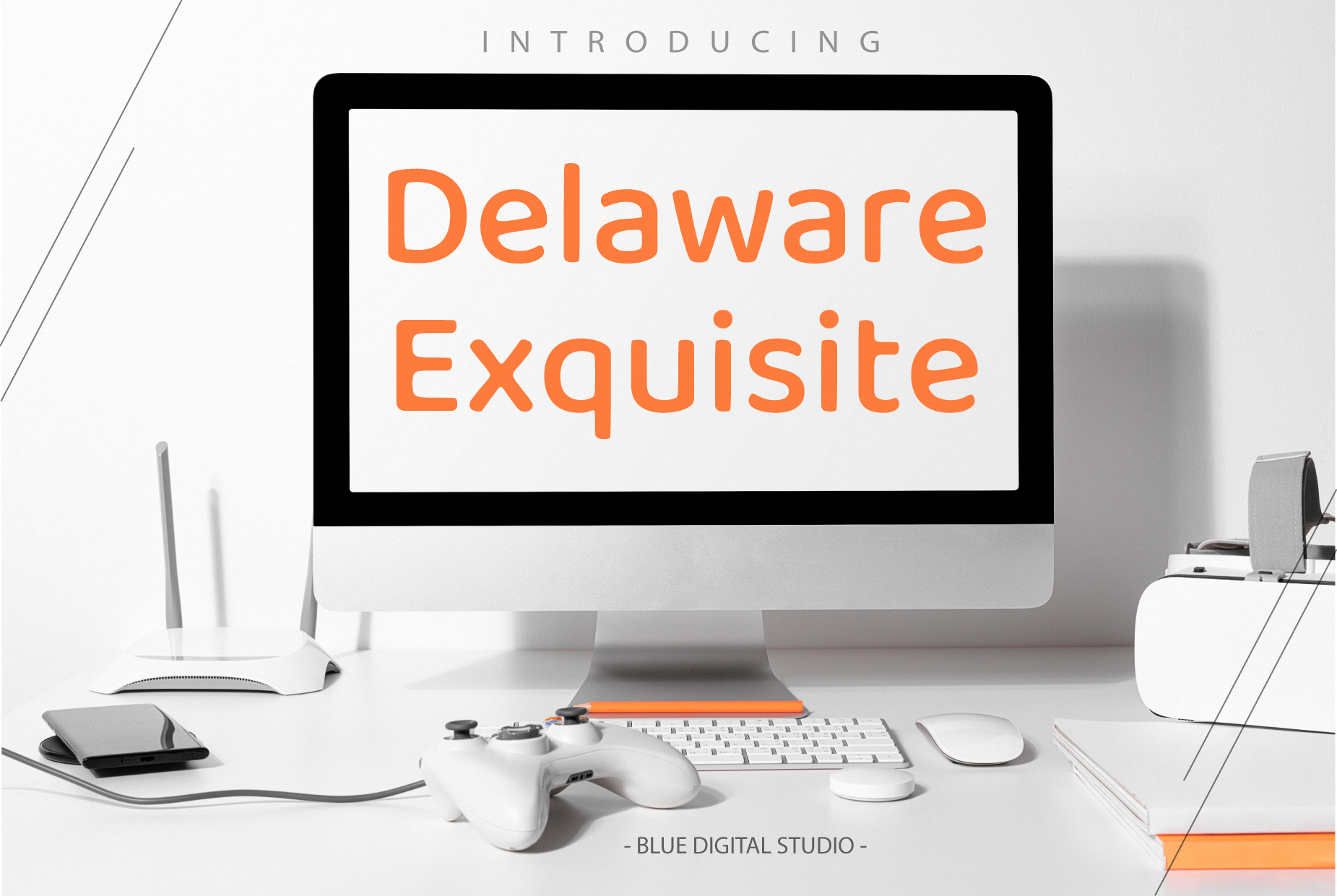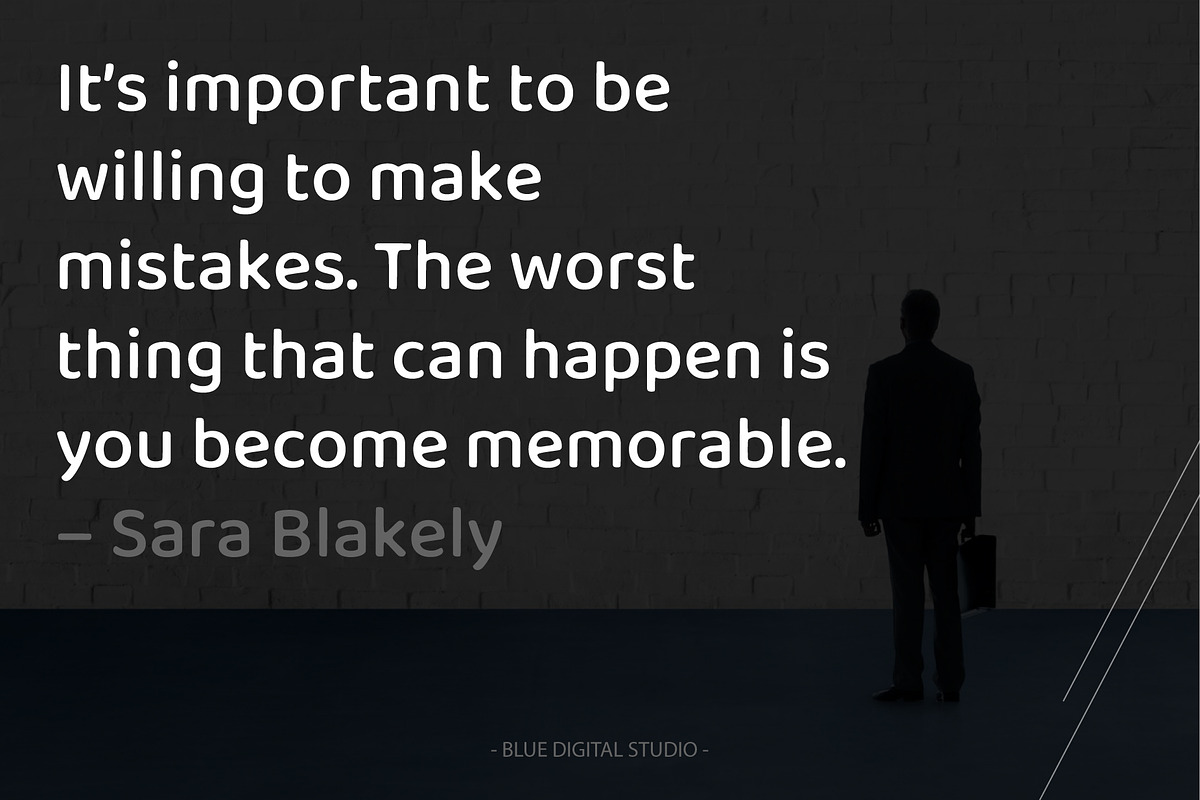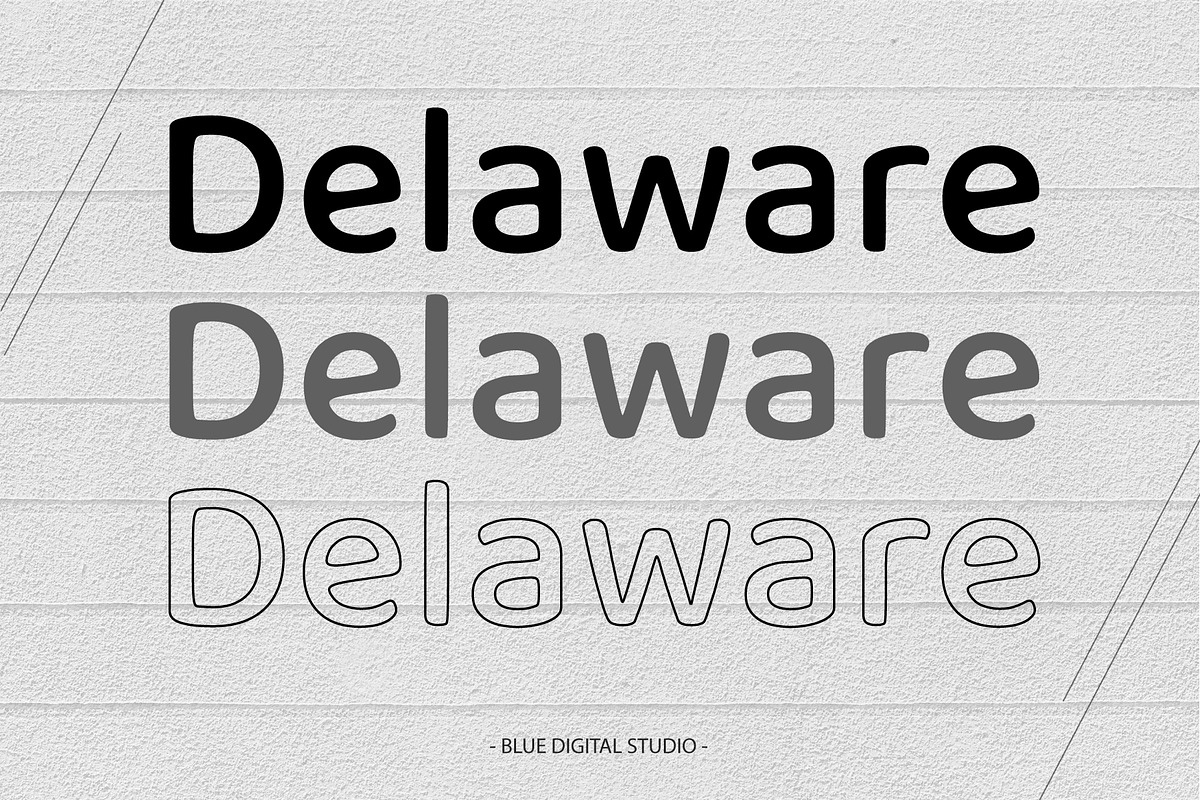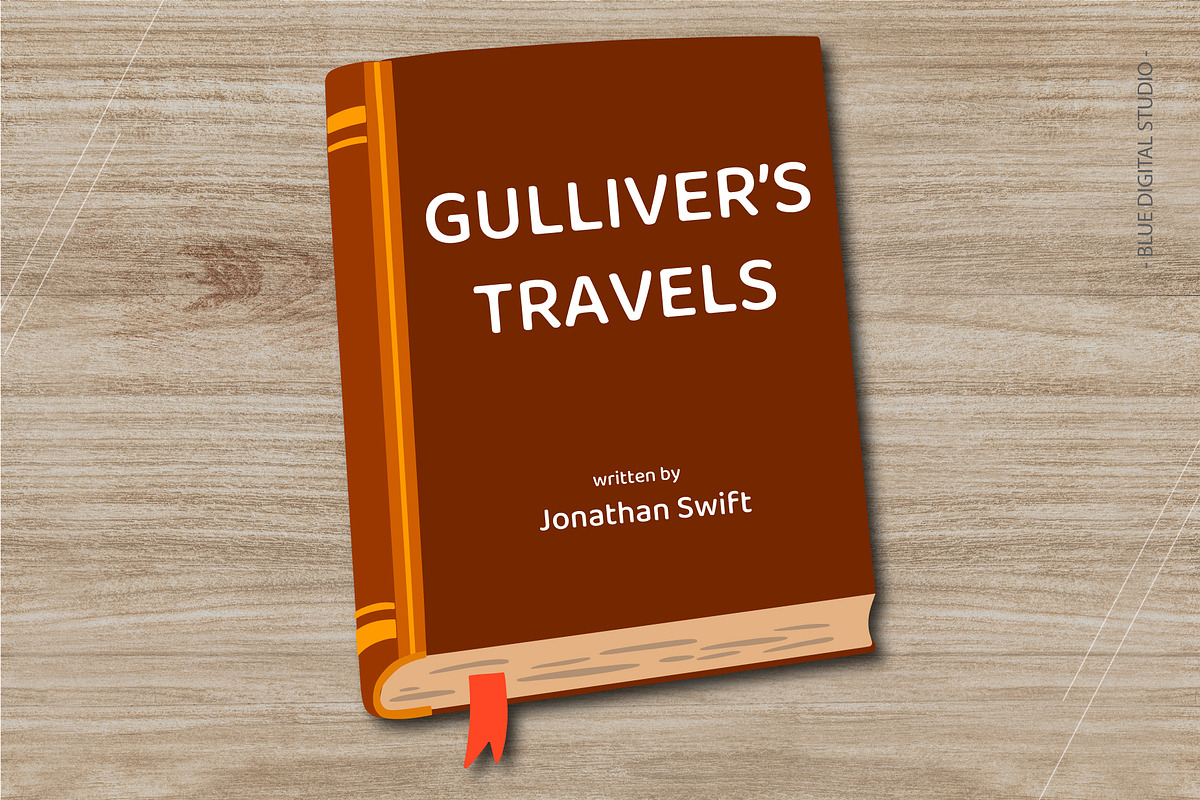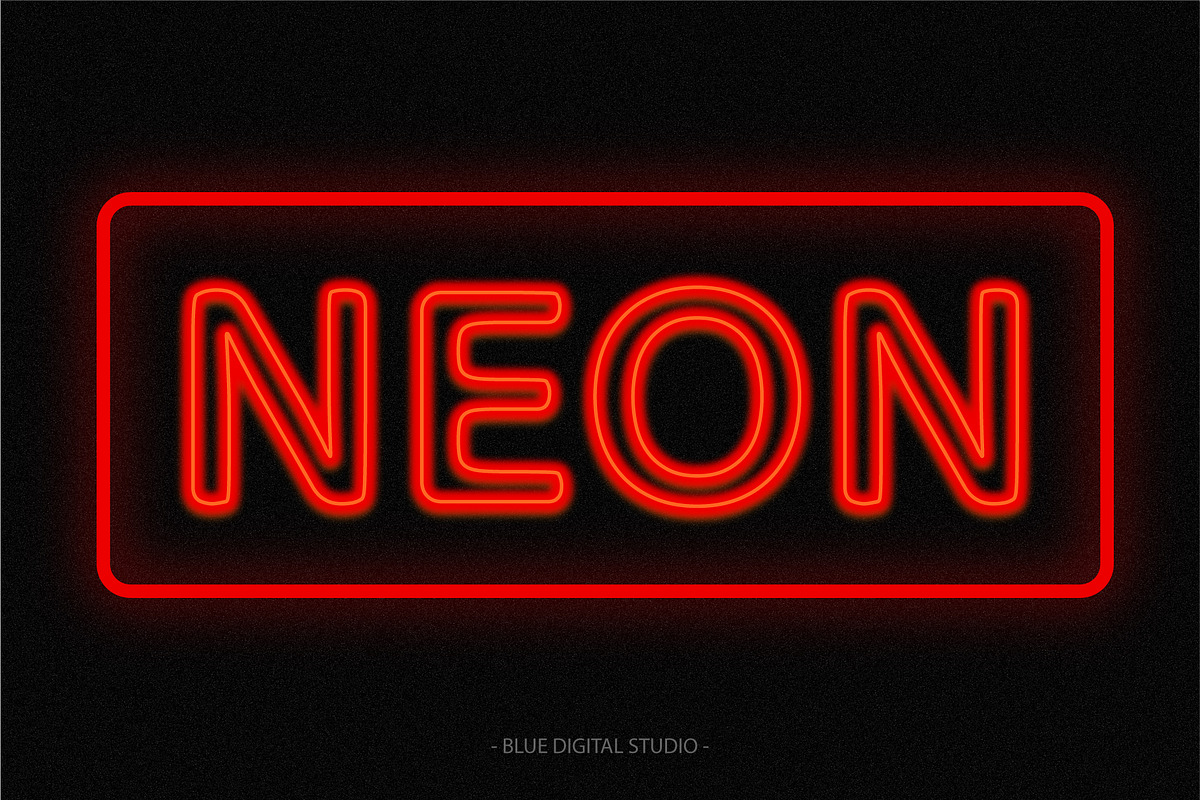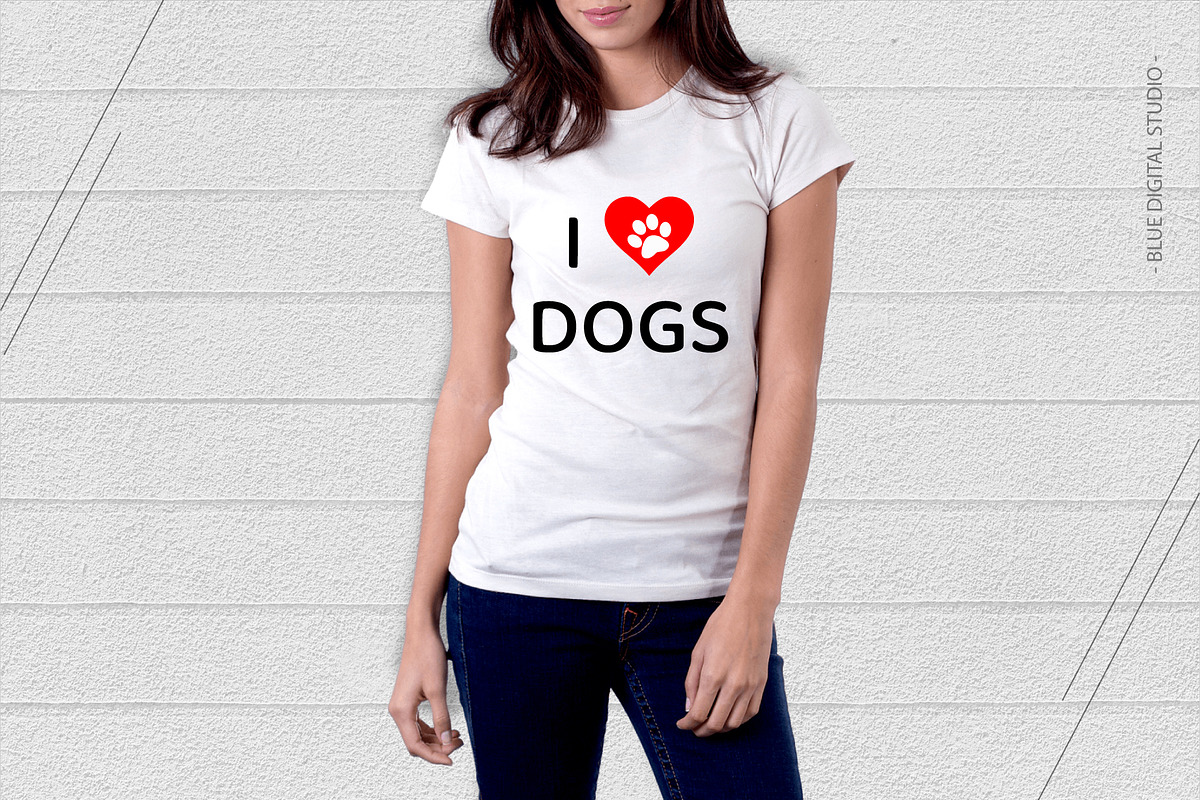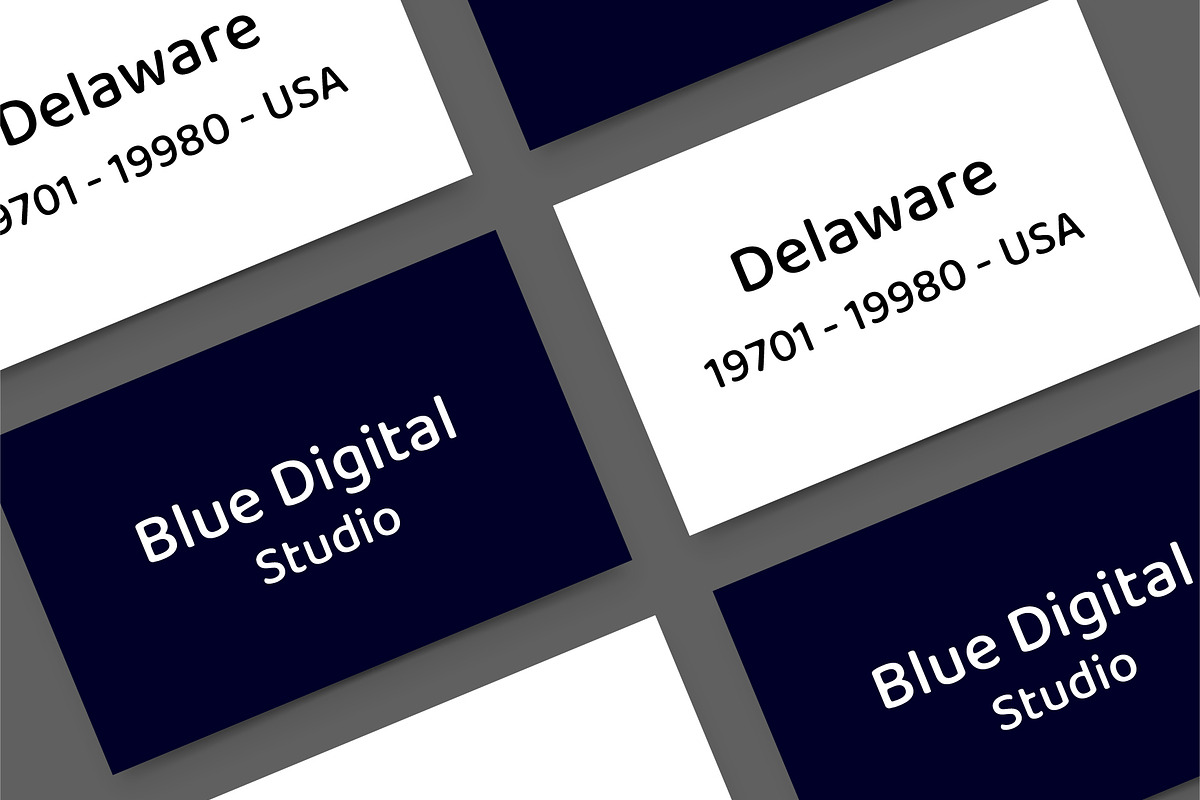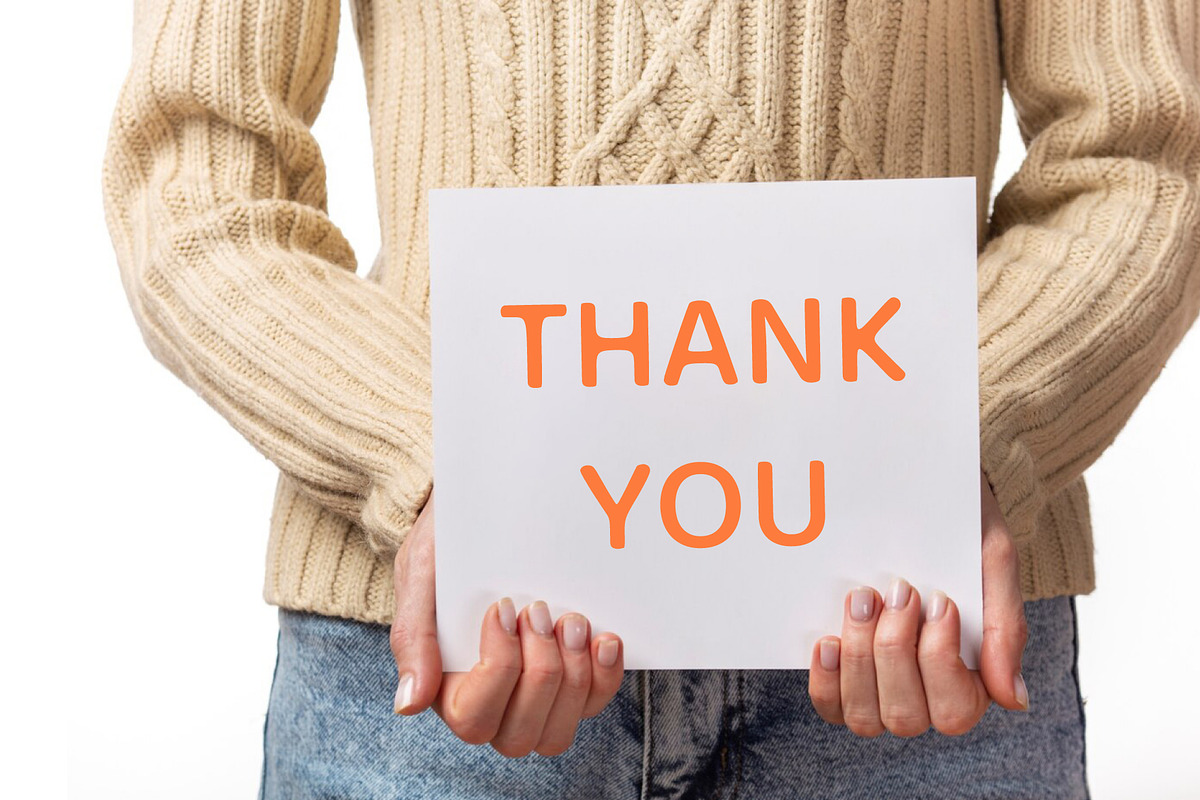
Delaware Exquisite Font | New Font
Delaware Exquisite Font – Elegant Serif Typeface for Branding & Design
Add a touch of sophistication and elegance to your projects with Delaware Exquisite Font, a premium serif typeface crafted for modern branding, luxury designs, and versatile creative work. Perfect for logos, social media graphics, websites, editorial layouts, packaging, invitations, and print projects, this luxury display font transforms your text into a stylish and timeless statement.
Whether you are creating fashion branding, lifestyle blogs, Instagram quotes, marketing campaigns, wedding stationery, or high-end product packaging, Delaware Exquisite Font gives your designs a distinctive, professional, and elegant look.
🌟 Why Choose Delaware Exquisite Font
- Elegant Serif Typeface – perfect for titles, headlines, logos, and short texts
- Versatile Luxury Font – works for modern and vintage design projects
- Professional Typography – crafted for designers, entrepreneurs, and creative projects
- Multilingual Support – accented characters included for international projects
- Complete character set – uppercase, lowercase, numerals, punctuation, symbols
💡 Perfect For
- Branding & Logo Design
- Advertising & Marketing Materials
- Social Media Templates & Instagram Quotes
- Modern & Vintage Typography Projects
- Posters, Flyers, Magazines & Editorials
- Website & Blog Design
- Packaging, Labels & Invitations
- T-shirt Designs, Wedding Invitations, and Luxury Print